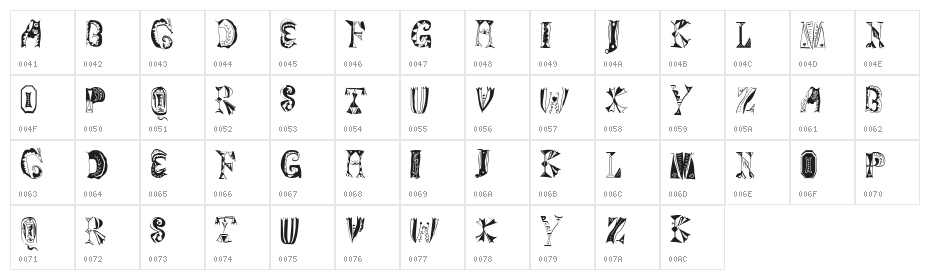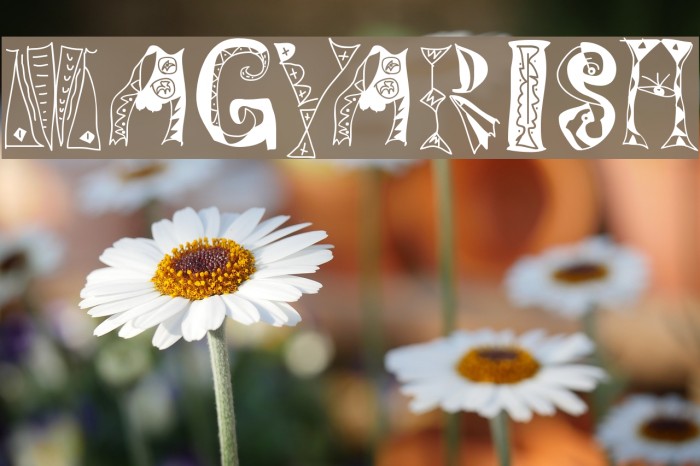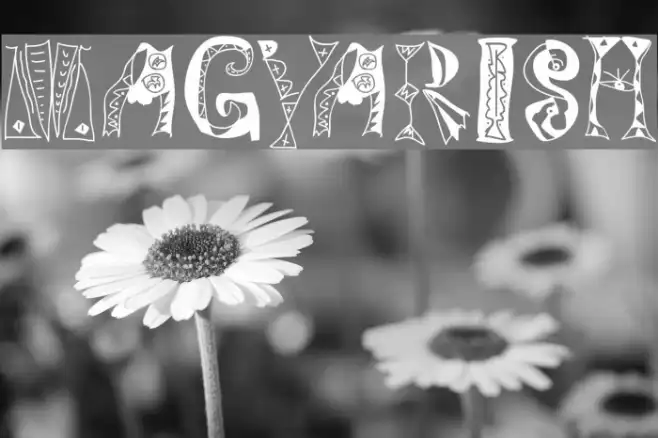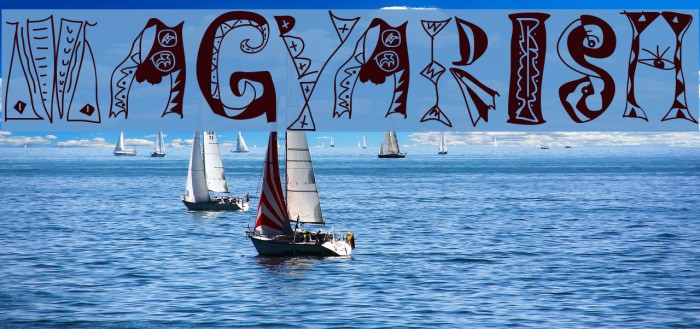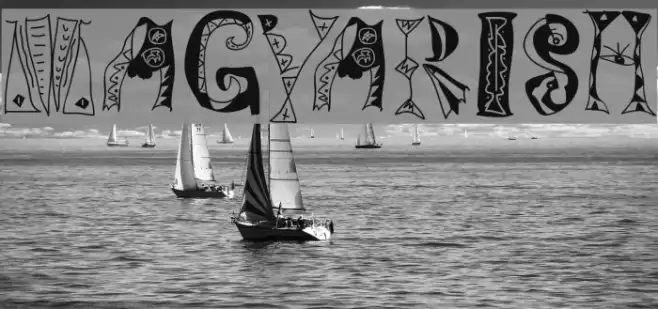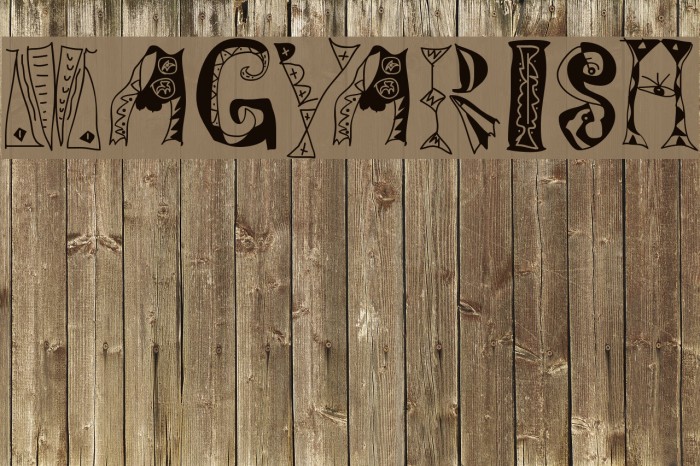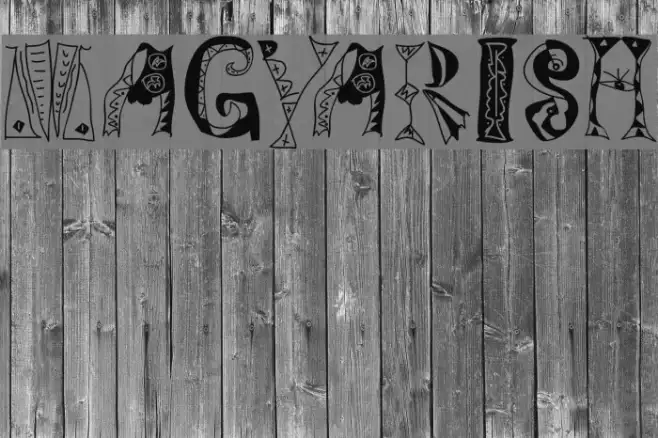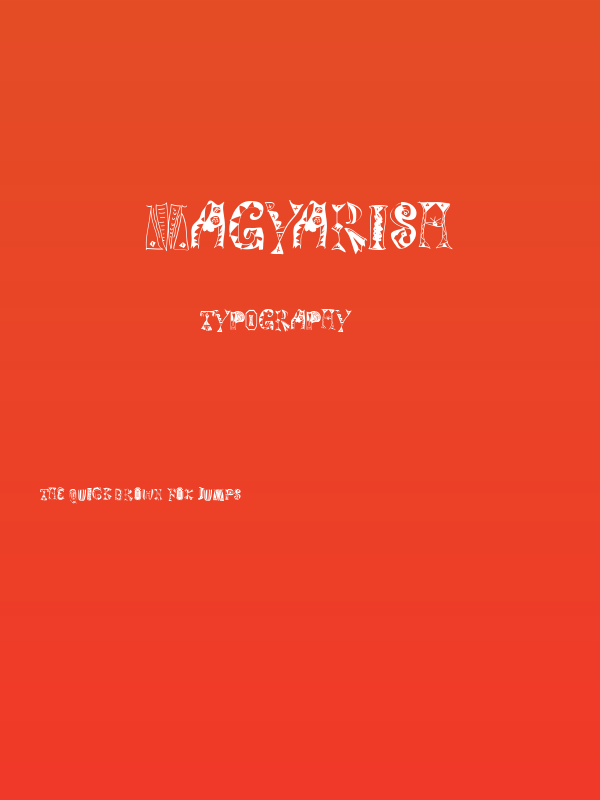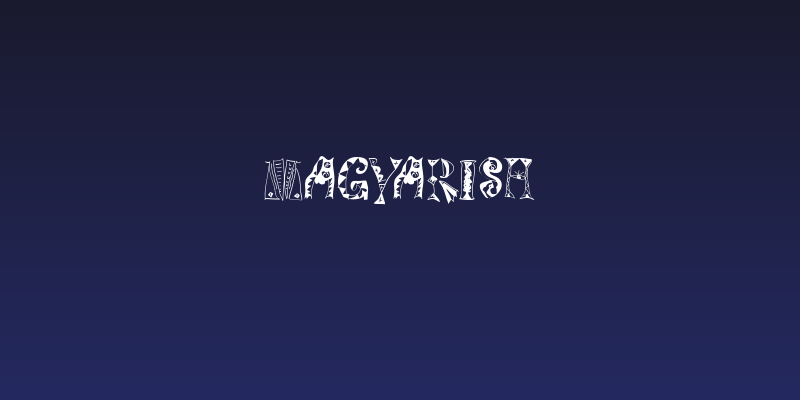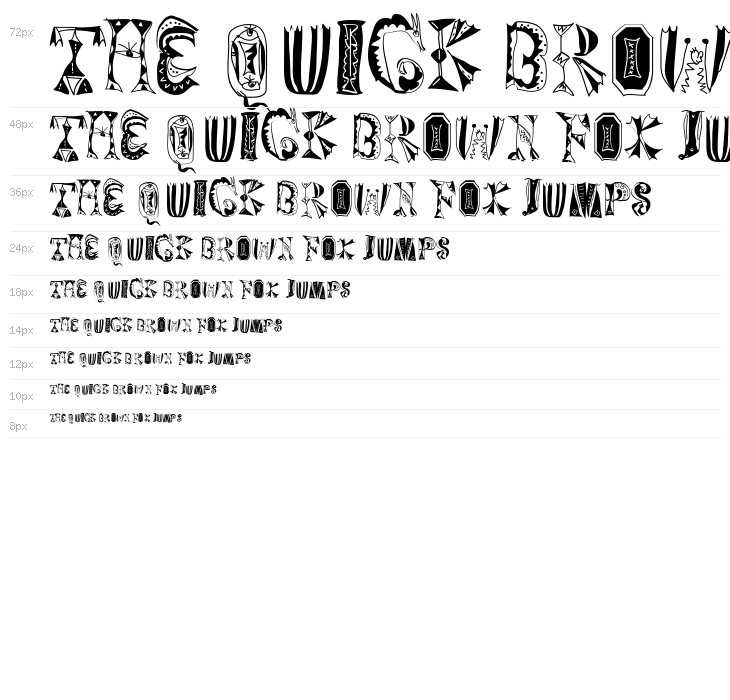
Magyarish Font
Magyarish Description
This font is a highly decorative and artistic typeface that features intricate patterns and unique embellishments within each character. The uppercase letters are bold and ornate, with a mix of geometric and organic shapes that create a visually striking appearance. The lowercase letters maintain the same level of detail, ensuring consistency throughout the typeface. The font's design is reminiscent of traditional folk art, with a whimsical and playful touch that adds character and charm. Each letter is a work of art in itself, making this font ideal for projects that require a strong visual impact.